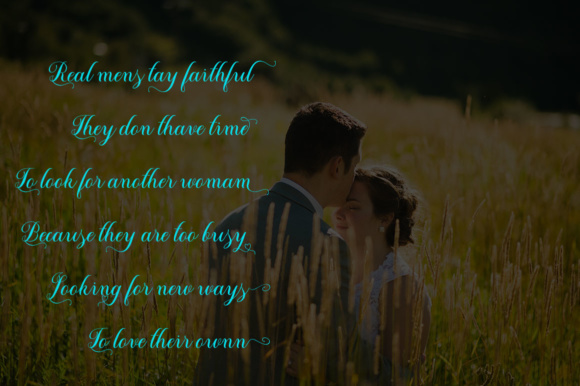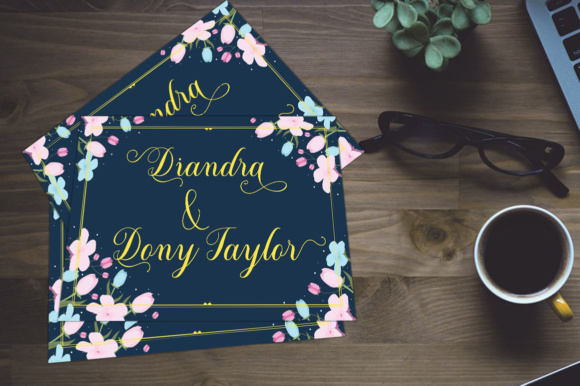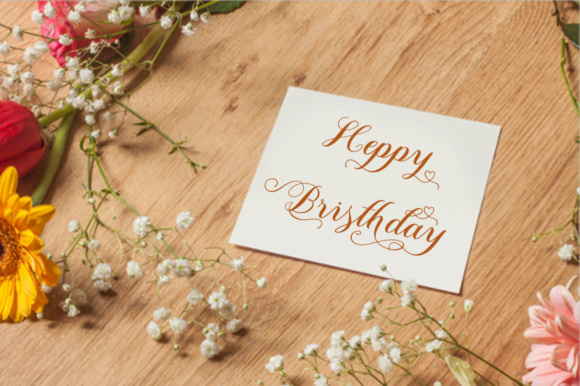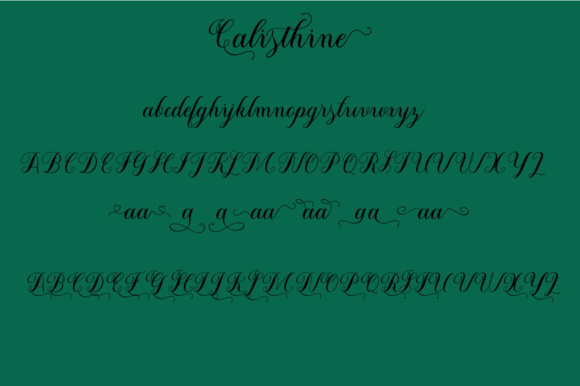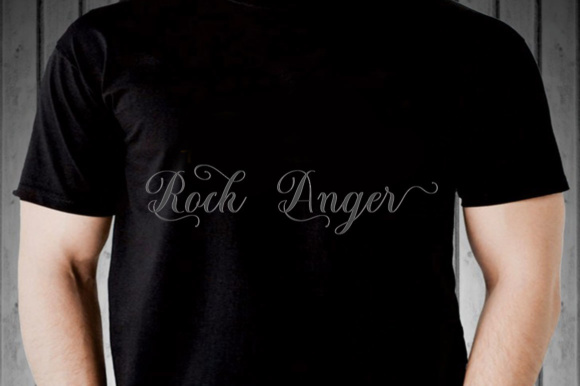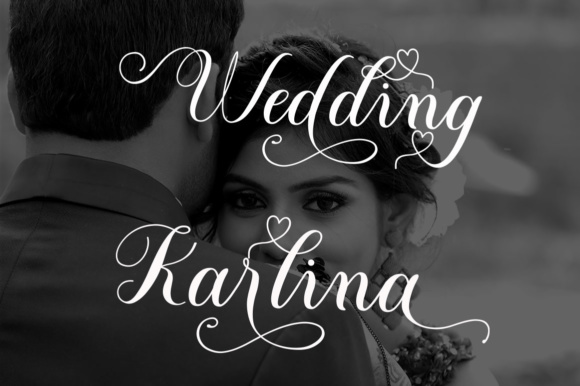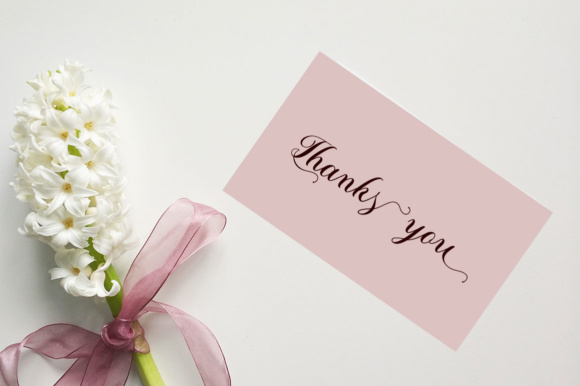
Calisthine Font
About Calisthine Font
Calisthine is a beautiful and elegant script font, ideal for use in special event designs. This font has stylistic alternates, so you can make unique looking headlines or displays in all of your creative works.